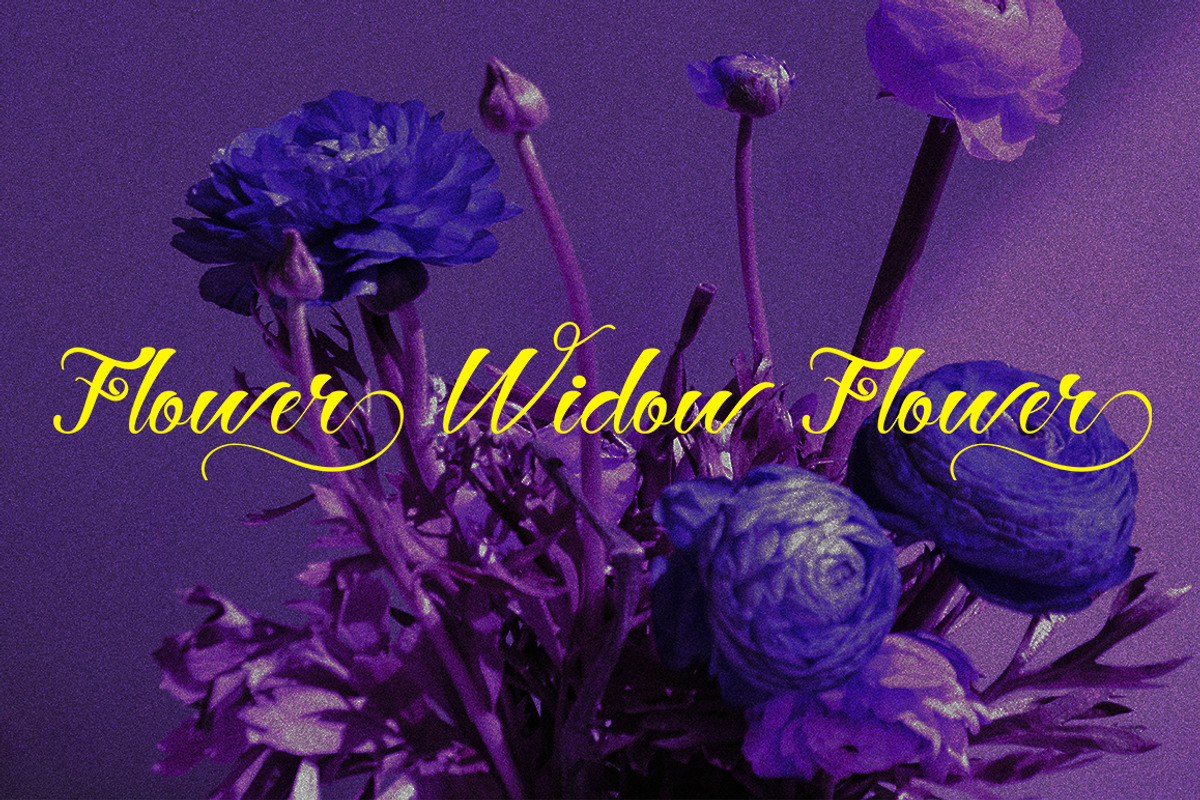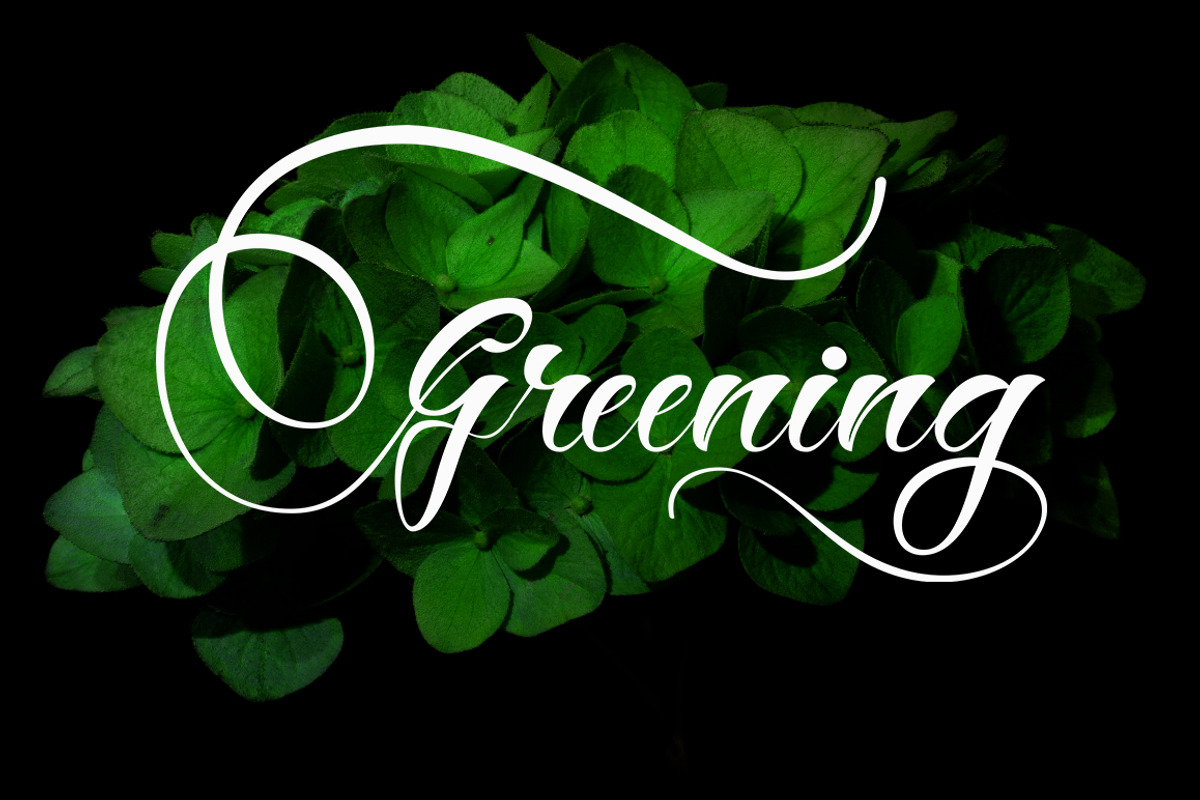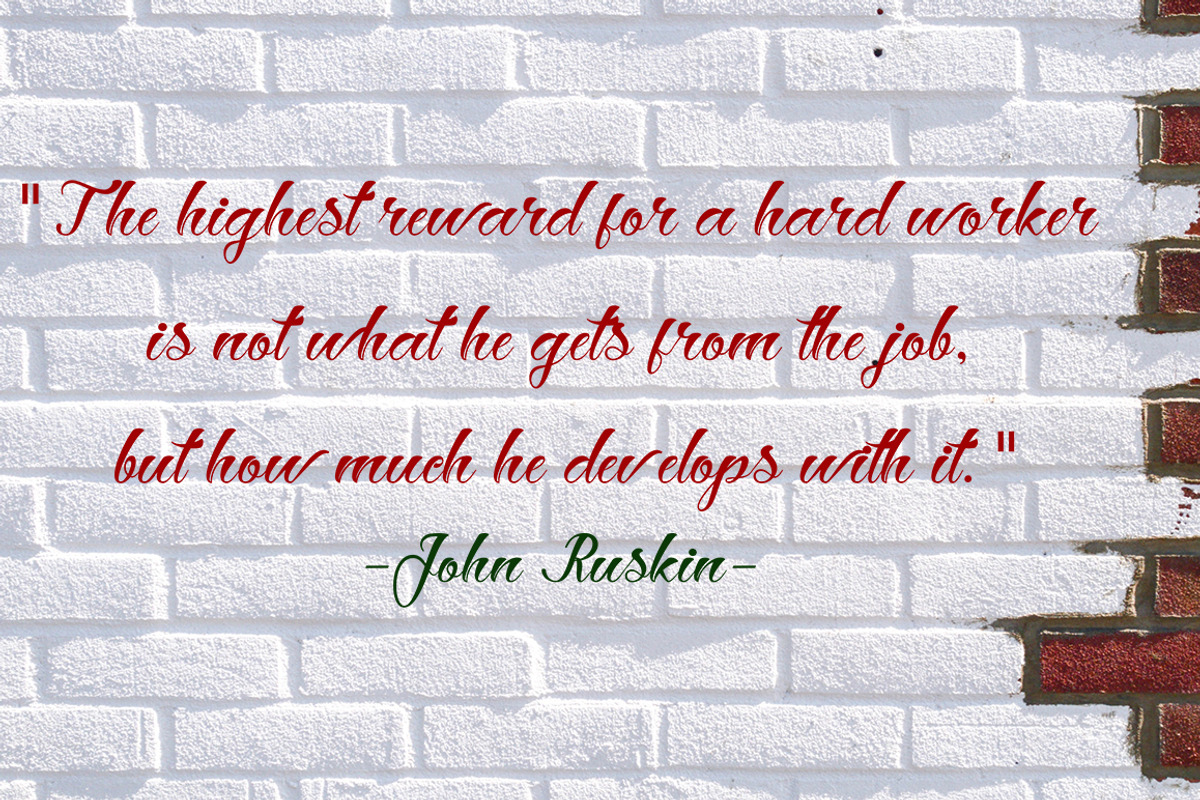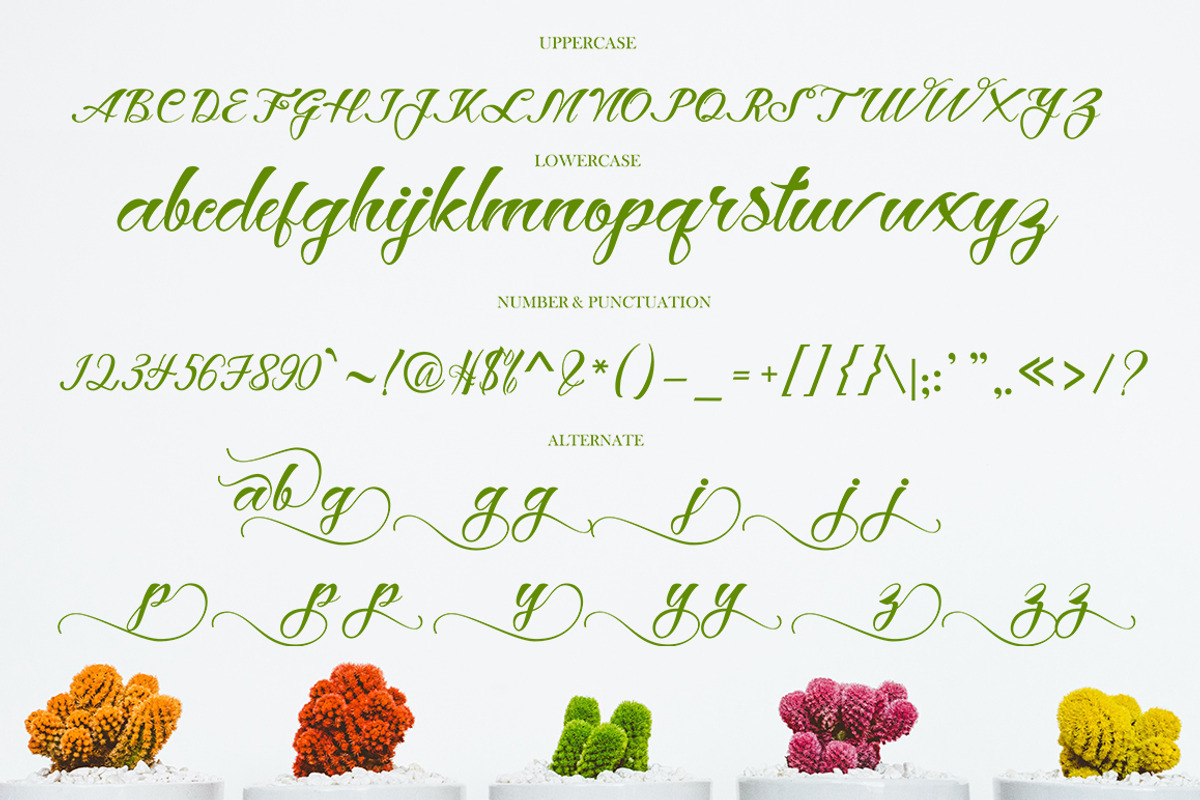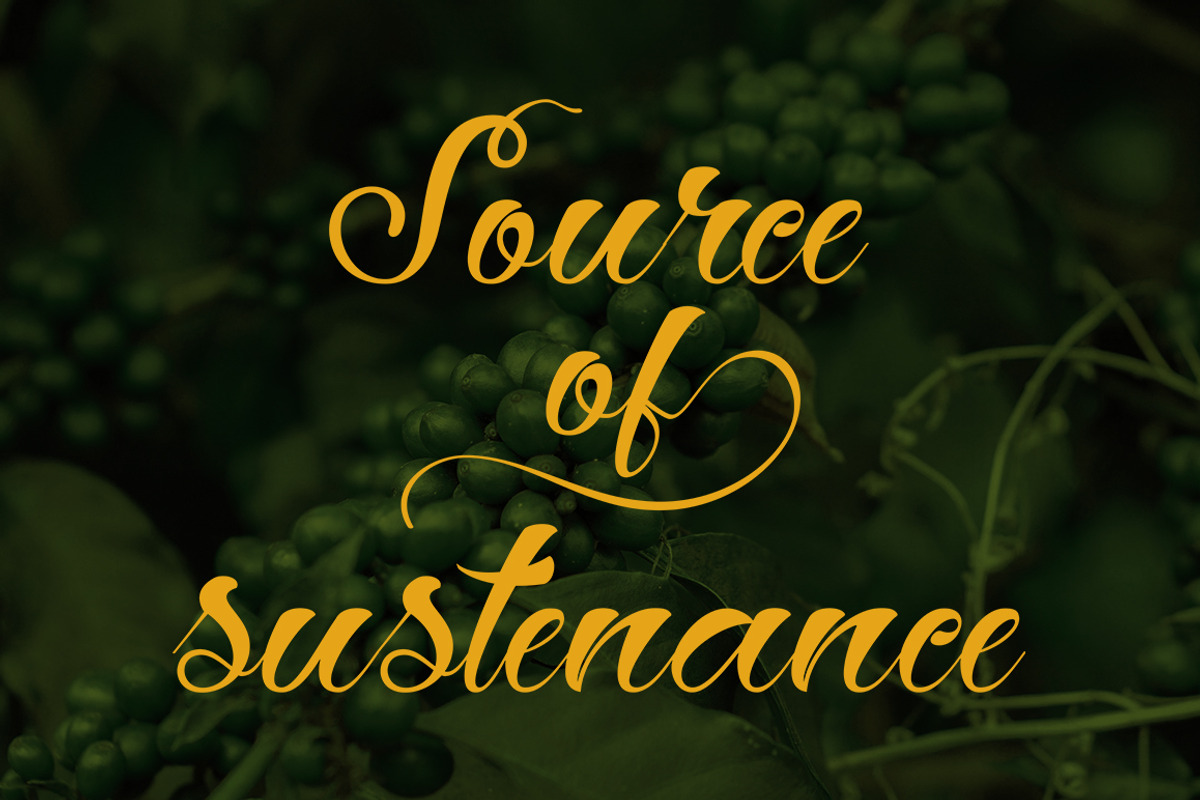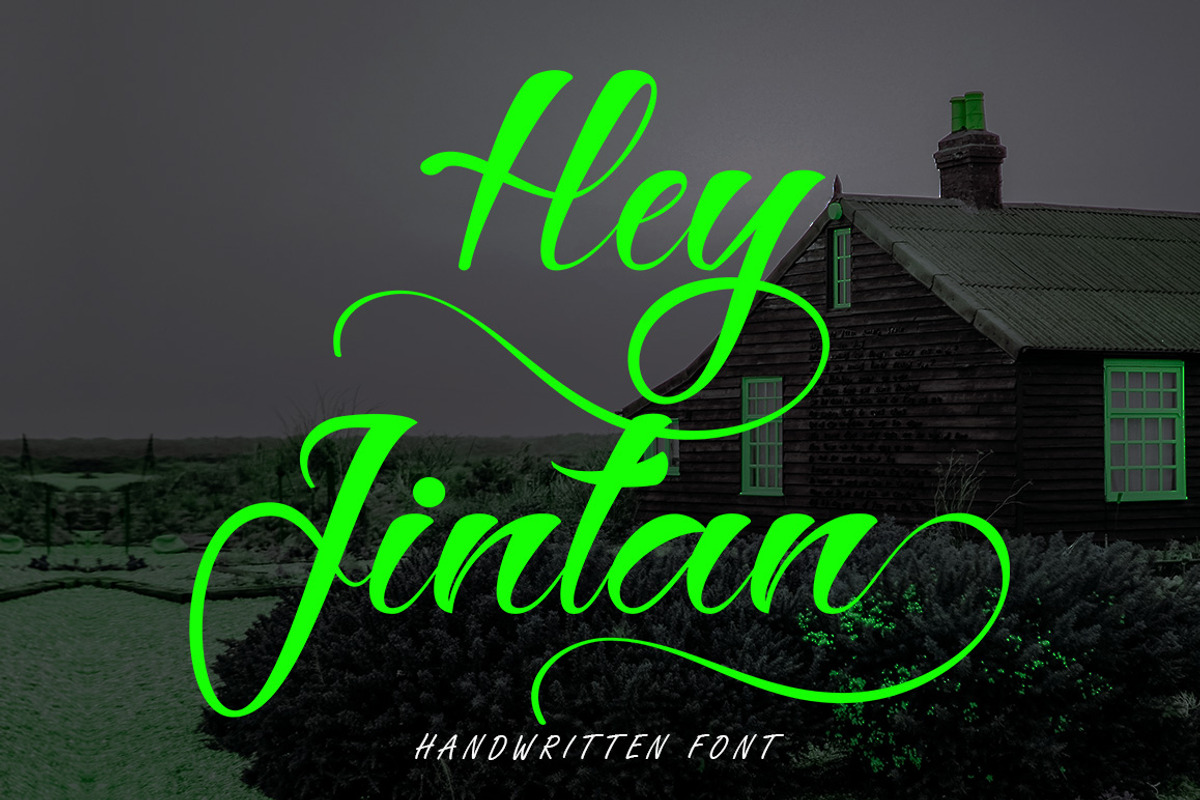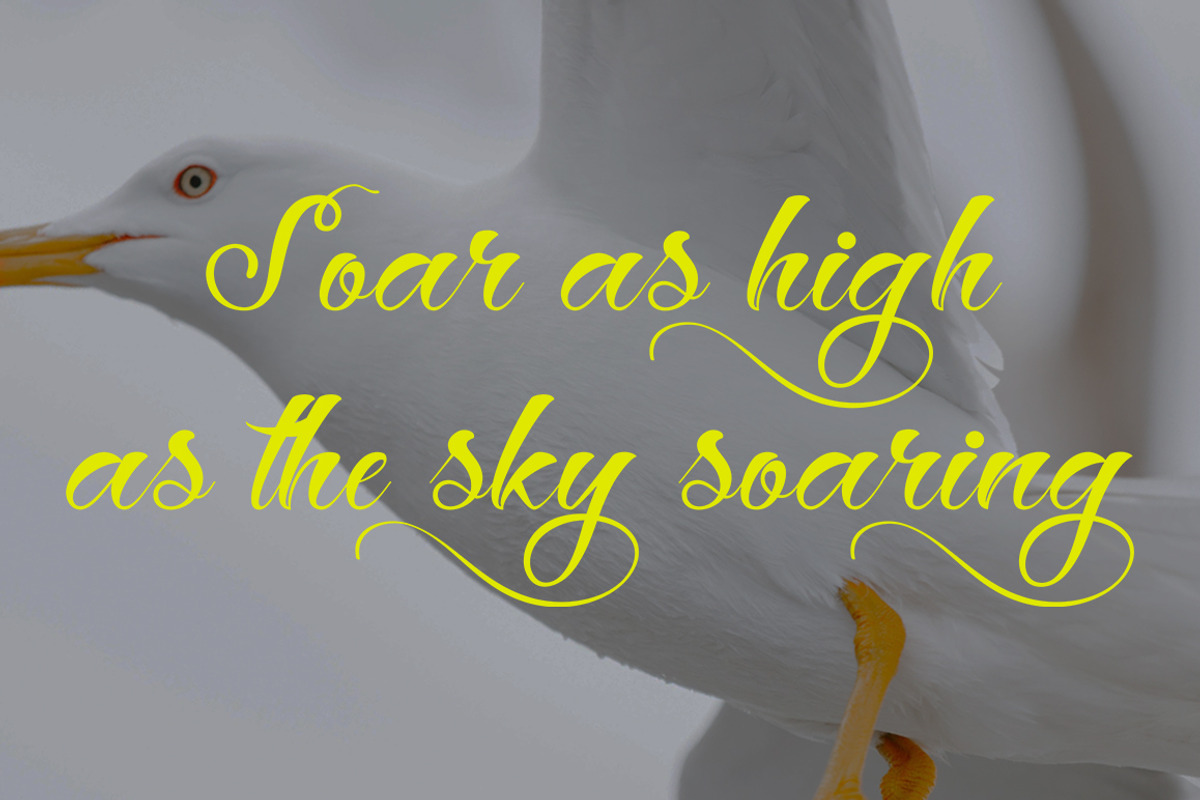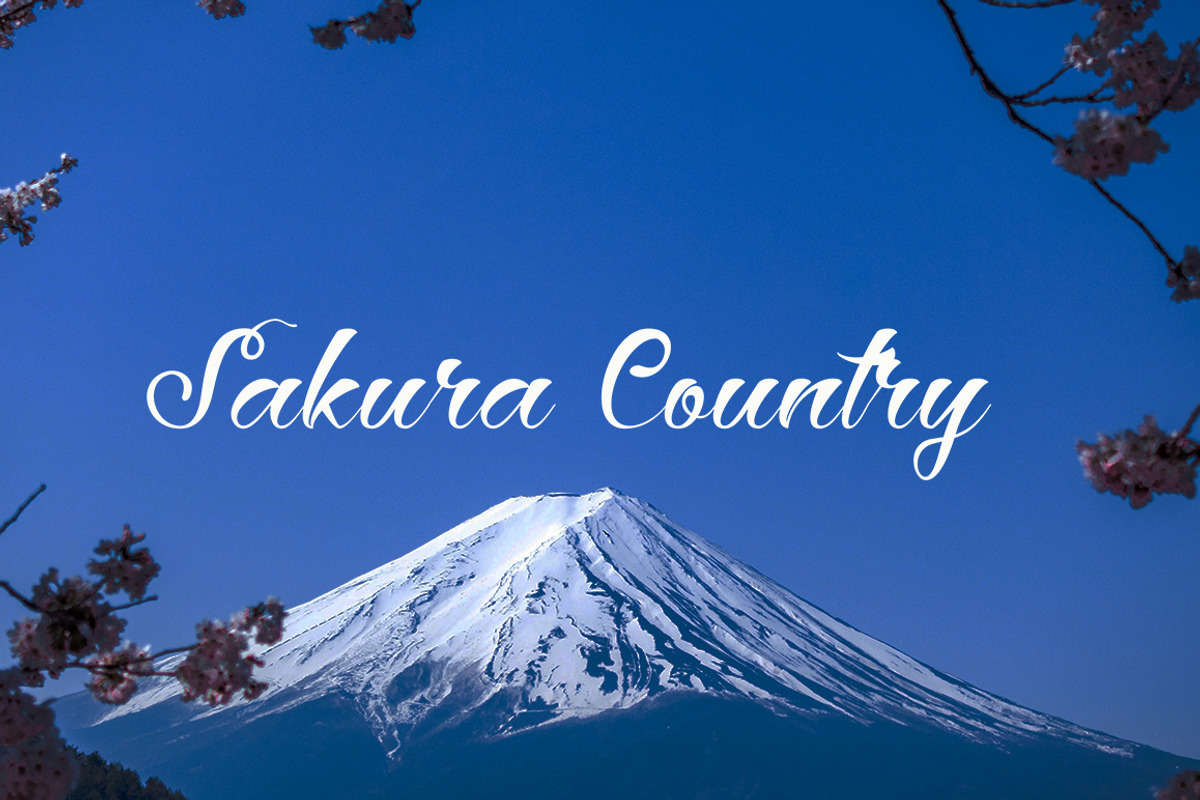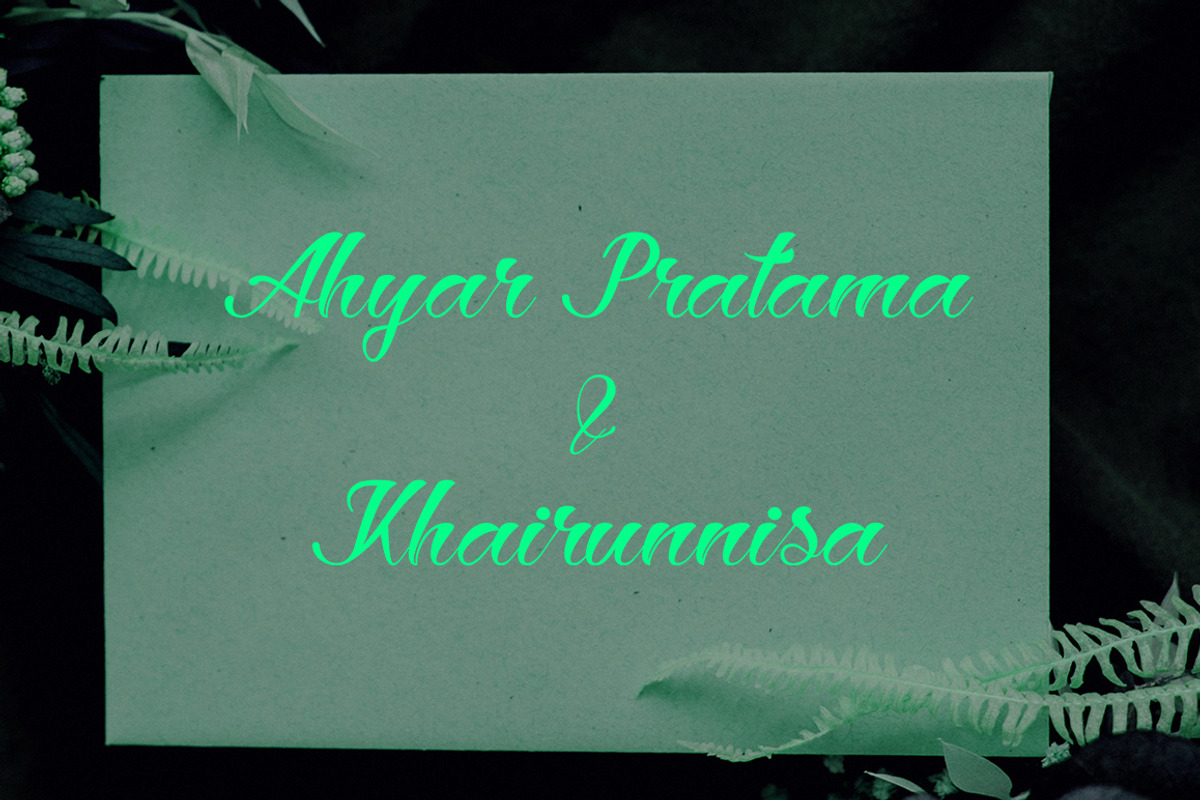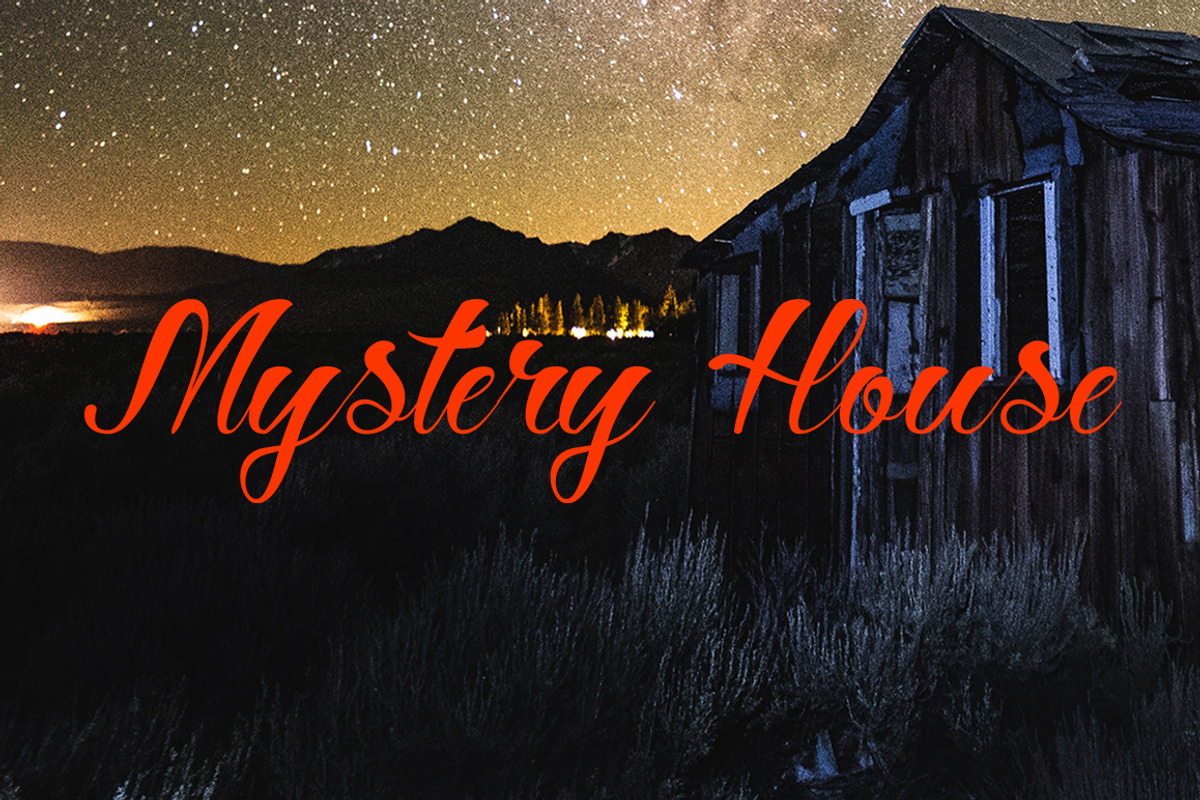
Hey Jintan
Hey Jintan is an elegant script font with a contemporary atmosphere and impeccable shape, inspired by timeless classic calligraphy. Neither too thin nor too thick, balanced and varied. Hey Jintan is designed to enhance the beauty of your project. because this font will be advocates for purposes such as wedding invitations, party, graduation, birthday, gathering, etc.